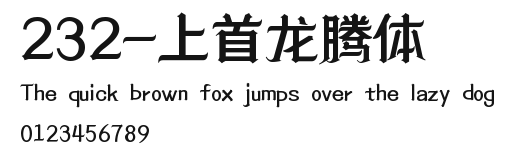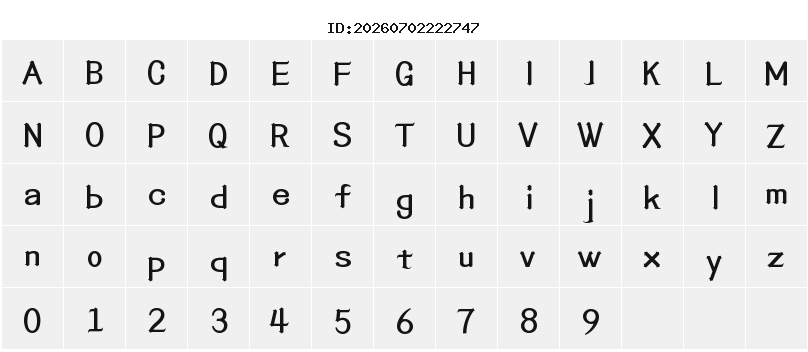
232-上首龙腾体 Preview
• Font Name: 232-上首龙腾体
• Full Font Name: 232-上首龙腾体
• Manufacturer: 上首造字
About 232-上首龙腾体.ttf
232-上首龙腾体.ttf is a modern, elegant sans-serif font designed for ultimate readability and visual harmony. Perfect for branding, headlines, web design, and print materials.